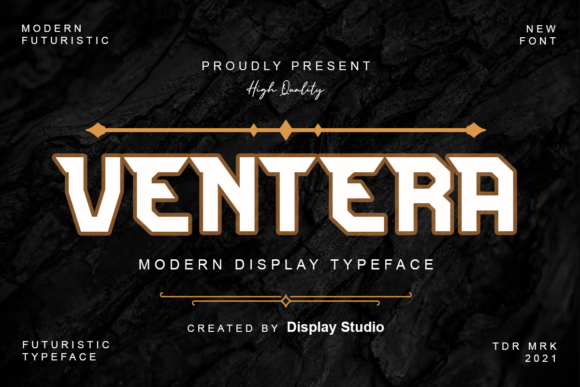
Step into the realm of captivating typography with Ventera Font, a display font that exudes boldness and modernity. Its striking presence commands attention, making it the perfect choice for branding projects that yearn for distinction.
With Ventera Font, your designs will radiate confidence and sophistication. Its sharp lines and clean curves evoke a sense of professionalism, while its unique character adds a touch of intrigue. Whether you're crafting logos, posters, social media graphics, or website designs, Ventera Font will elevate your creations to new heights.
This versatile font family caters to a multitude of design aesthetics. Its clean and legible structure lends itself beautifully to minimalist designs, while its robust and eye-catching nature shines in bolder, more experimental concepts. Unleash your creativity and let Ventera Font guide you to typographic excellence.
Ventera Font is more than just a collection of letters; it's an artistic tool that empowers you to make a statement. Its inherent versatility allows you to effortlessly convey a wide range of emotions and messages. From playful and whimsical to serious and authoritative, Ventera Font adapts seamlessly to your creative vision.